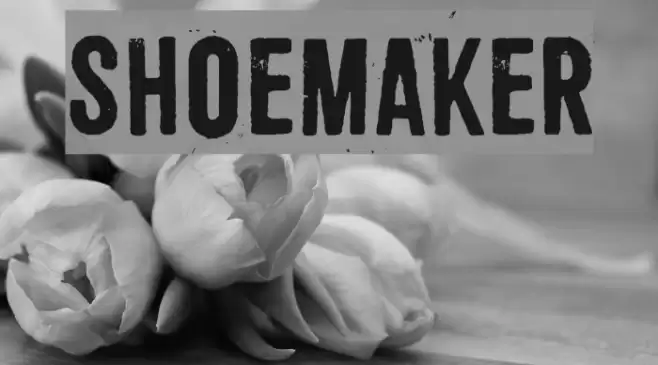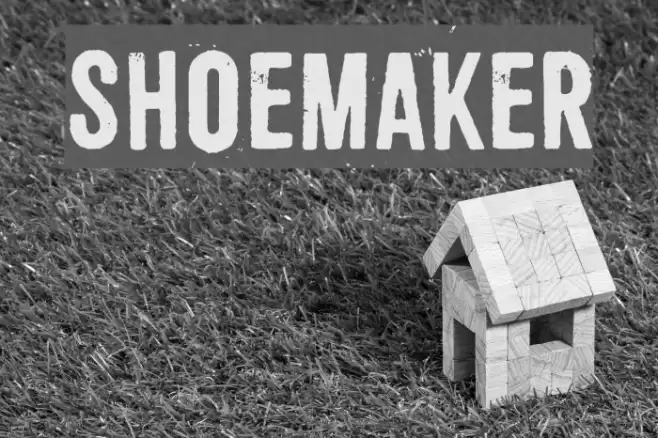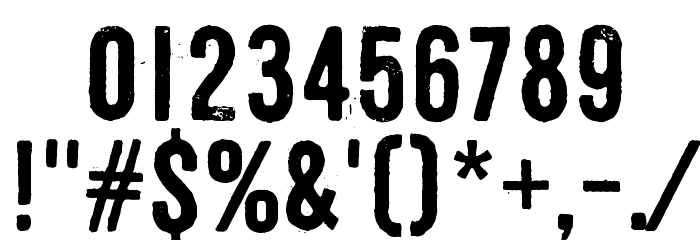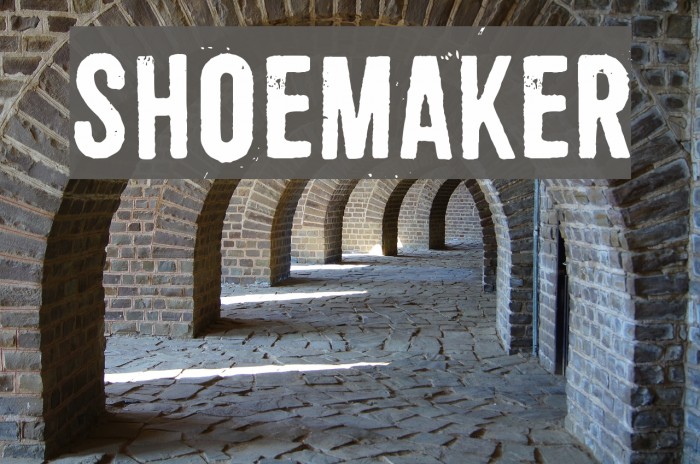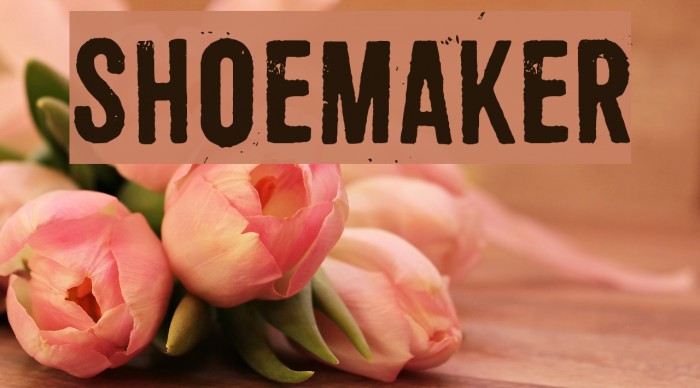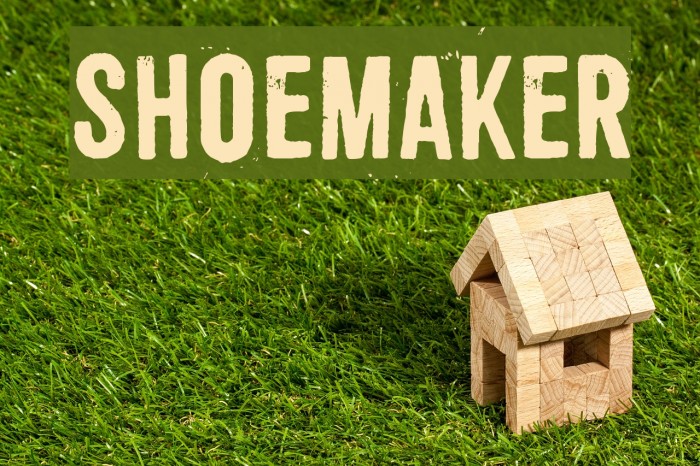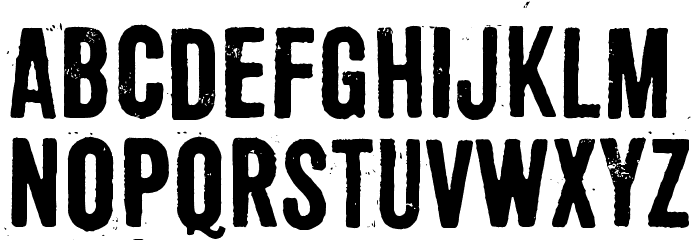
Shoemaker Font
Shoemaker Description
This font features a bold, distressed style with a vintage, industrial feel. The characters are uppercase and lowercase with a rough, textured appearance, suggesting a worn or weathered look. The numerals and special characters maintain this rugged aesthetic, making it ideal for designs that require a strong, impactful presence. The font's boldness and texture give it a unique character, perfect for projects that aim to convey a sense of history or authenticity. The spacing between characters is relatively tight, enhancing its compact and robust appearance.
A bold, distressed font with a vintage, industrial style from Uncategorized fonts.
- Character Spacing: Tight
- Overall Style: Vintage